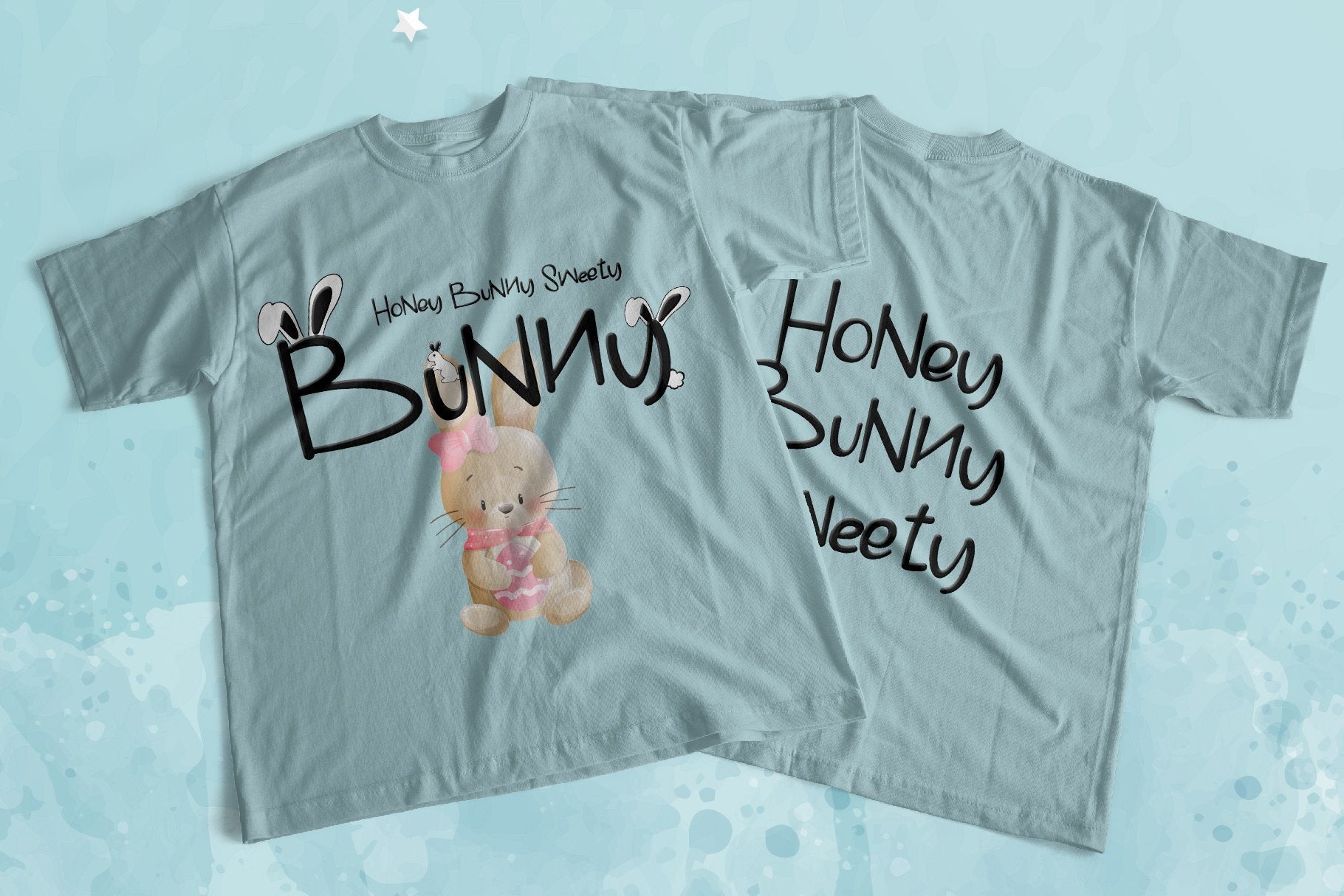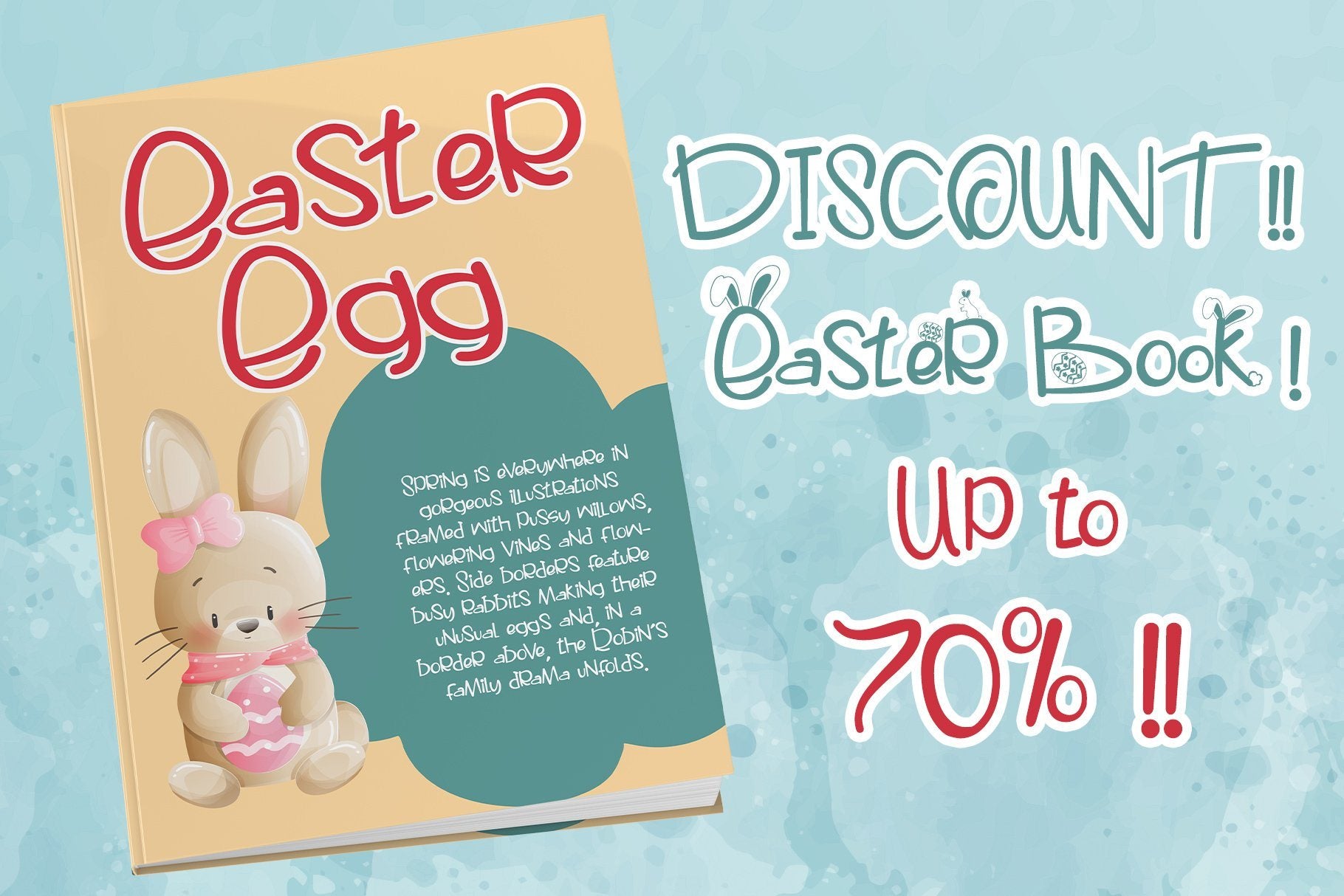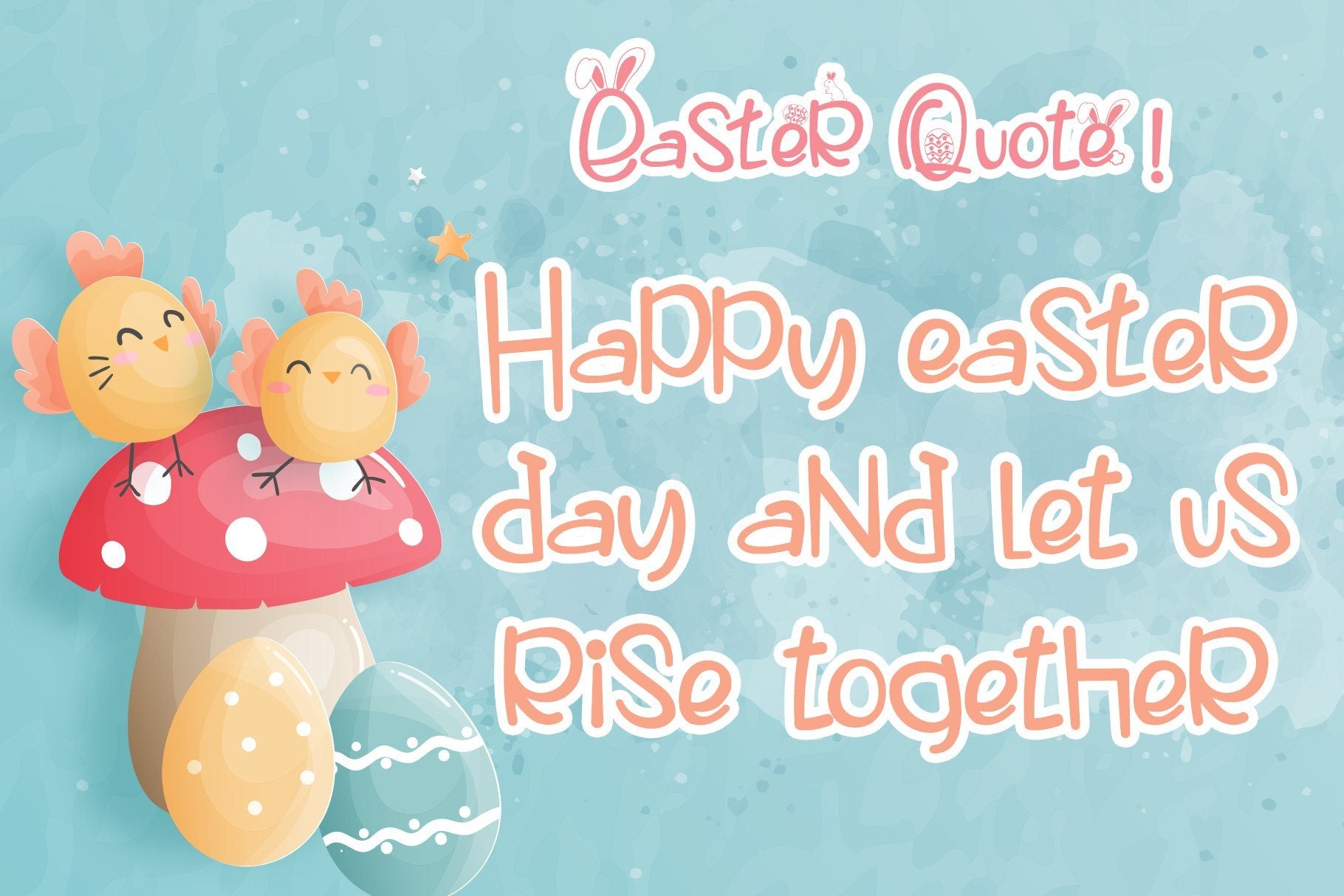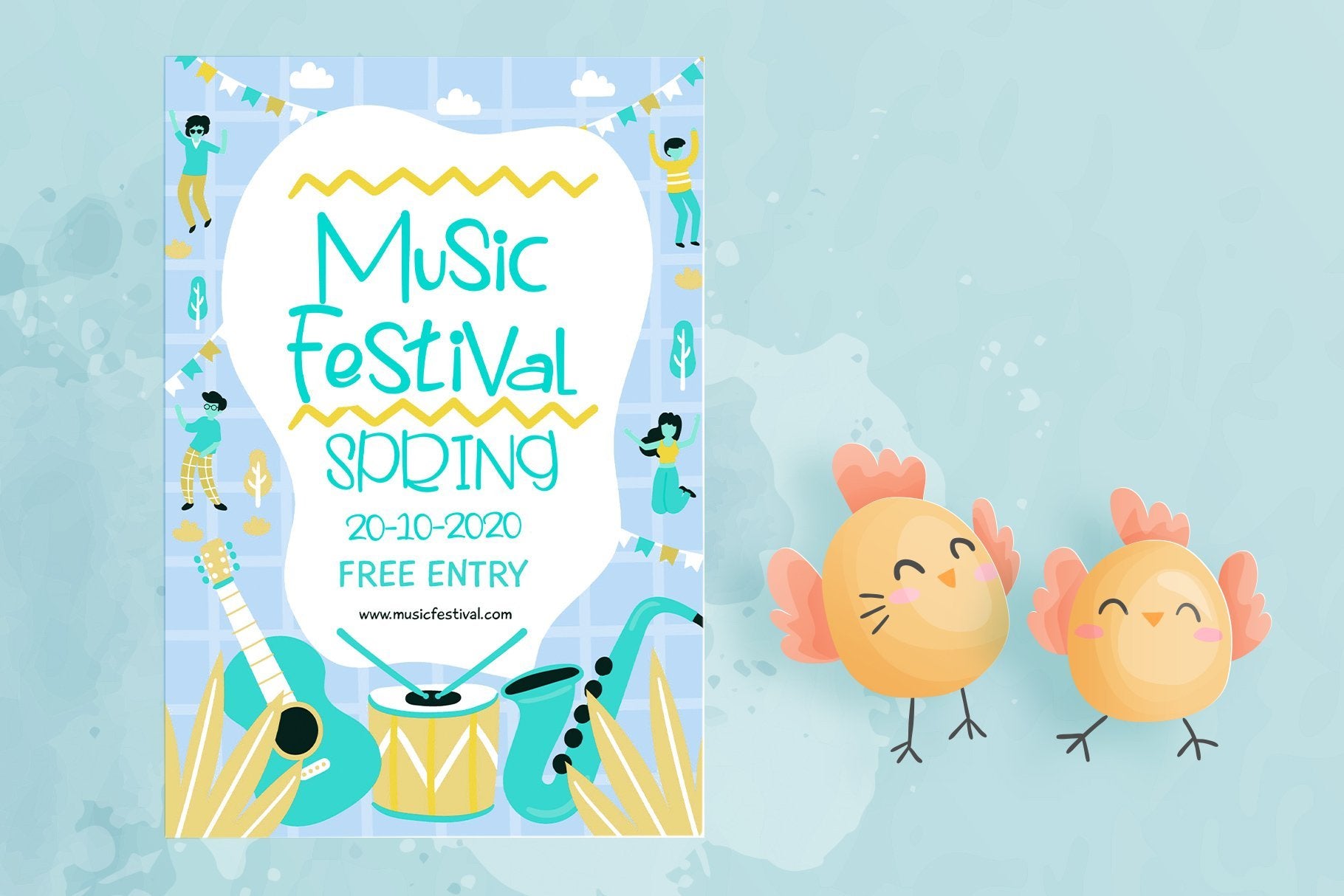
About Easter Sunday
LIMITED OFFER!!! Easter Sunday a script jam-packed with flourishes and additions to make each of your designs completely unique. This font is easy to read, and even easier to use; add some easter theme to your work with Easter Sunday! Add Easter Sunday, a versatile script font, to your collection today! FEATURES: Welldone (TTF, OTF, WOFF) Works both on Mac & PC Simple installations Support silhouette Many features: (A-Z, a-z) Alternate, (A-Z, a-z) Swash, (a-z) titling, Ligature, (A-Z, a-z) ss01, (A-Z, a-z) ss02, (a-z) ss03, (a-z)ss04 & (a-z) ss05 Accessible in the Adobe Illustrator, Adobe Photoshop, Adobe InDesign, CorelDraw, even work on Microsoft Word. Support multilingual; ä ö ü Ä Ö Ü ß ¿ ¡ To access the alternate glyphs, you need a program that supports OpenType features such as Adobe Illustrator CS, Adobe Photoshop CC, Adobe Indesign, and CorelDraw. More information about how to access alternate glyphs, check out this link ( http://goo.gl/ZT7PqK ) This font is PUA encoded which means you can access all of the playful glyphs and swashes with ease! It also features a wealth of special features including alternate glyphs and ligatures. To stay up to date for my latest job, follow me and let’s be friends because there will be many promos. Our other products: BESTSELLER MILEADILA BEAUTIFUL KISSES ANGELIN GAMOS HERTINA JENNIE ANTIKA AURORA BLACK PINK SIGNATURE California Street BESTOWENS FAMILY